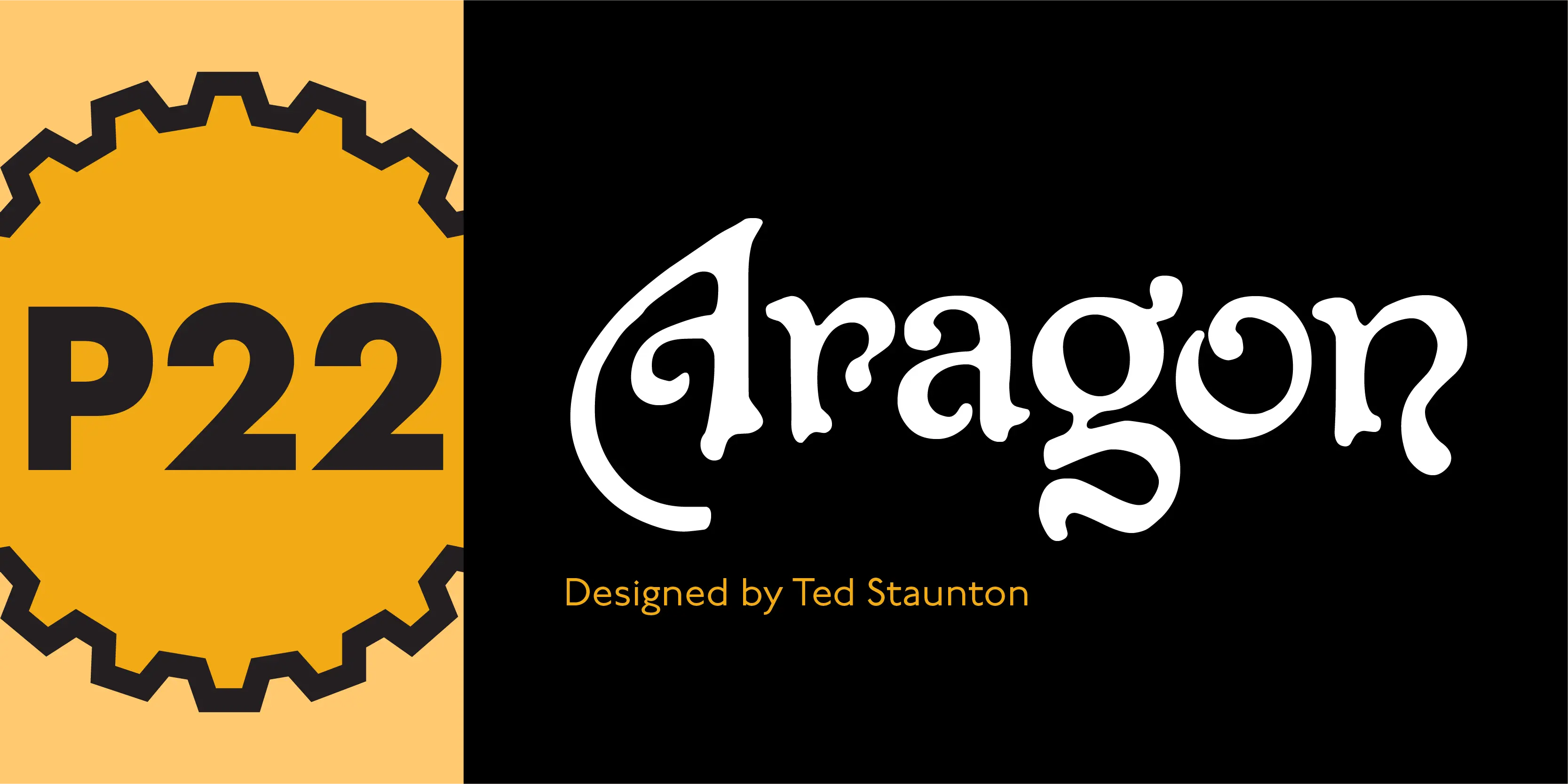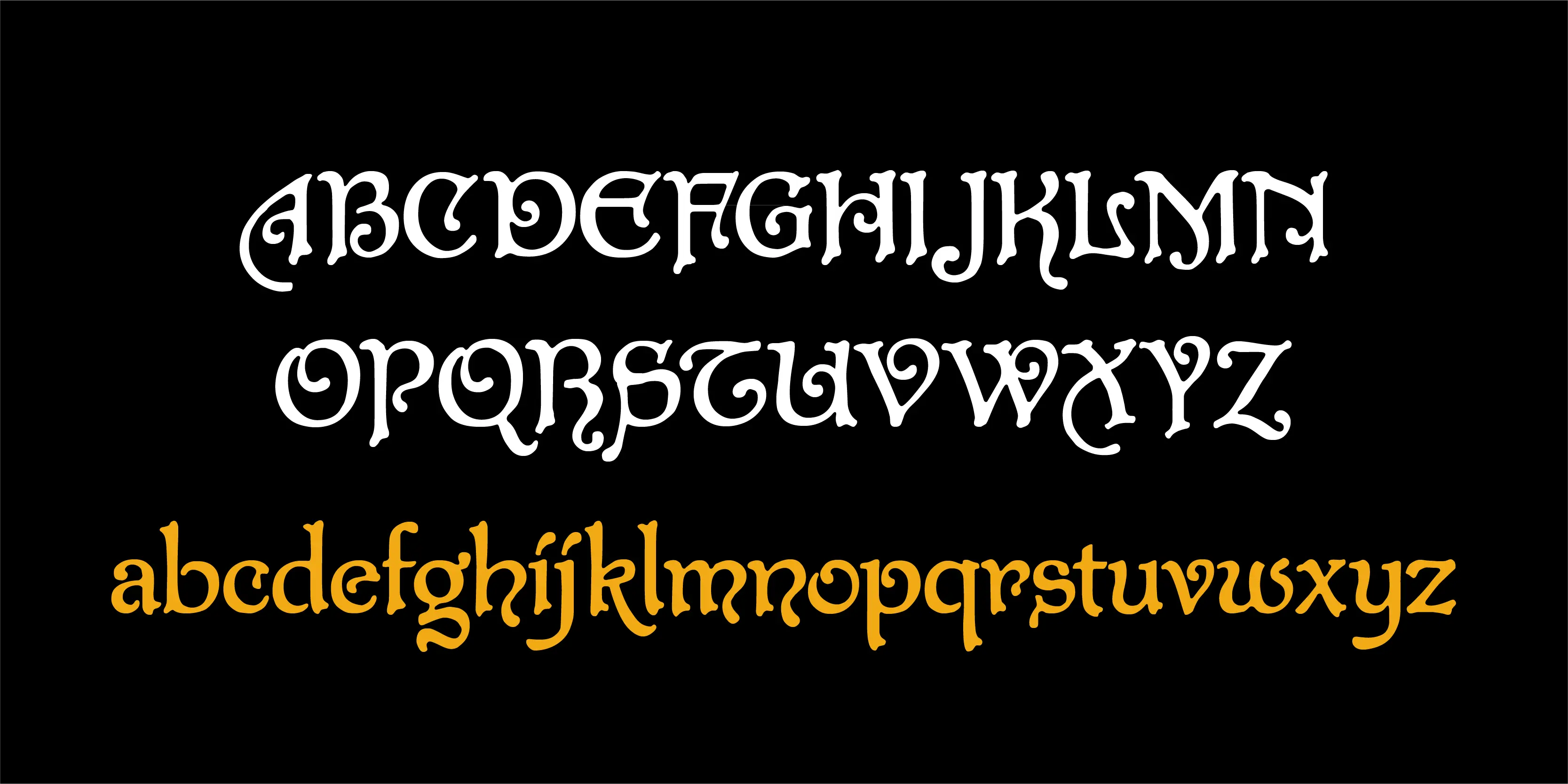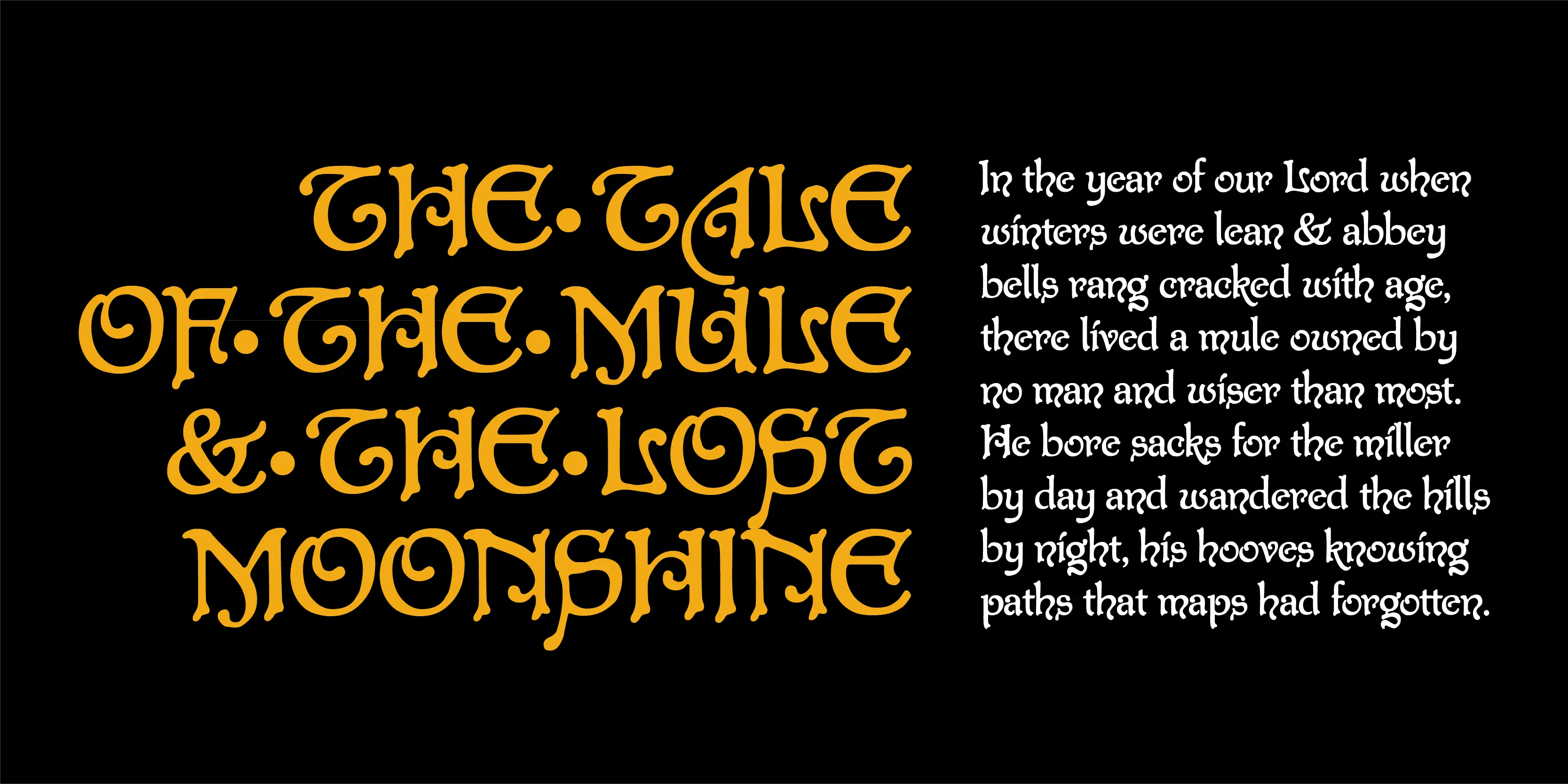
Aragon Font
Aragon
A whimsical font with robust curlicues. Designed for display lines on show programs, posters, print ads etc. Many — but not all — of the letters are based on rounded Lombardic medieval forms.